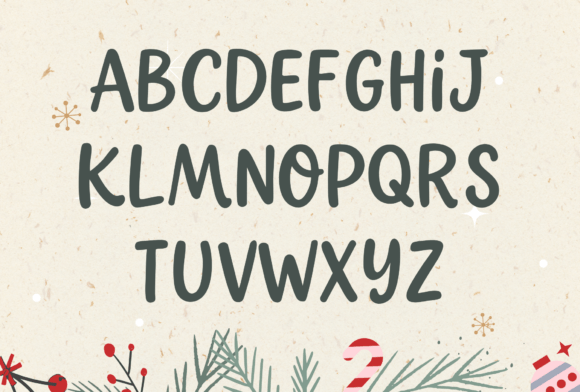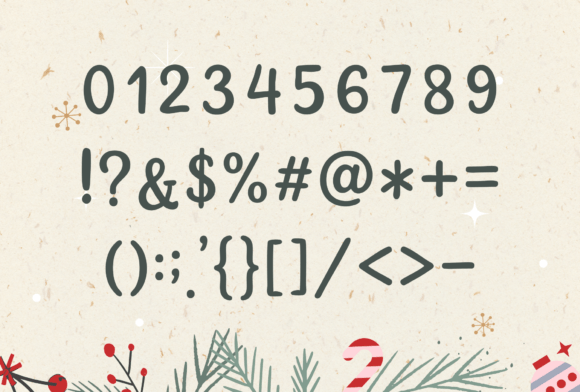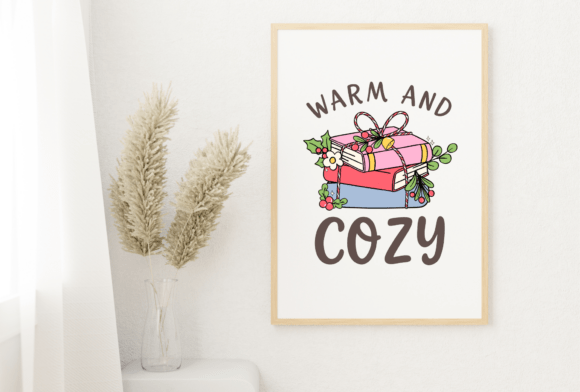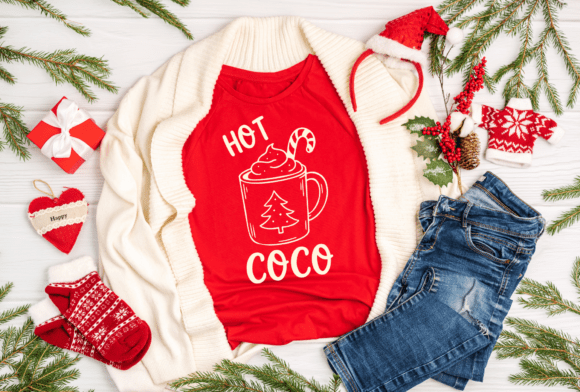
Introducing Cozy Vibes Font: The Ultimate Playful and Friendly Typeface for Creative Projects
Are you looking for a font that can add a touch of warmth and charm to your creative projects? Look no further than Cozy Vibes Font, a playful, hand-drawn doodle font that’s perfect for designers, crafters, and small business owners alike. This versatile typeface blends soft, rounded doodle lettering with a touch of casual script, making it ideal for a wide range of applications, from stickers and planners to greeting cards, apparel prints, and social media graphics.
What Makes Cozy Vibes Font So Special?
Cozy Vibes Font is more than just a font – it’s a way to add a personal touch to your designs. Its friendly, doodle style and handwritten feel make it perfect for creating handmade, cozy products that stand out from the crowd. Whether you’re a DIY crafter, sticker artist, or small business owner, Cozy Vibes offers an easy-to-use, versatile typeface that’s compatible with popular tools like Cricut, Silhouette, Canva, Procreate, Adobe Illustrator, and Photoshop.
The Perfect Font for Crafts, Stickers, and Handmade Products
Cozy Vibes Font is specifically designed with crafters and makers in mind. Its playful, hand-drawn style makes it perfect for stickers, planners, greeting cards, and other handmade products. The font’s soft, rounded edges and casual script style give it a warm, inviting feel that’s sure to appeal to customers looking for unique, personalized products.
Ideal for Small Business Merch and Branding
Cozy Vibes Font is also an excellent choice for small business owners looking to create custom merchandise and branding materials. The font’s friendly, approachable style makes it perfect for creating eye-catching posters, social media graphics, and apparel prints that showcase your brand’s personality. Plus, its compatibility with popular design tools like Canva and Adobe Illustrator makes it easy to integrate into your existing design workflow.
Digital and Print-Friendly
One of the best things about Cozy Vibes Font is its versatility. It’s perfectly suited for both digital and print applications, making it ideal for a wide range of projects, from mugs and t-shirts to posters, cards, and social media designs. Whether you’re creating digital files for clients or printing your designs on physical products, Cozy Vibes Font is the perfect choice.
Key Features of Cozy Vibes Font
- Friendly doodle & handwritten style — adds handmade, cozy feel
- Great for crafts, stickers, planners & handmade products — ideal for small-business merch
- Suited for both digital & print — perfect for mugs, t-shirts, mugs, posters, cards, social media designs, etc.
In conclusion, Cozy Vibes Font is a must-have for anyone looking to add a personal touch to their designs. Its unique blend of soft, rounded doodle lettering and casual script style makes it perfect for a wide range of applications, from crafts and stickers to branding and marketing materials. So if you’re ready to take your designs to the next level, be sure to check out Cozy Vibes Font today.